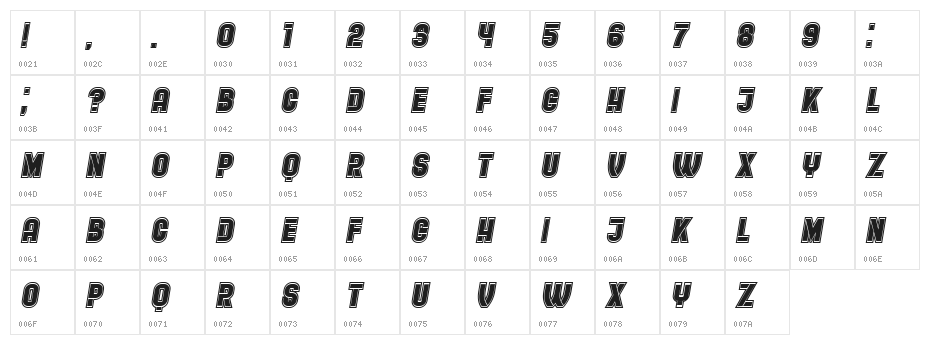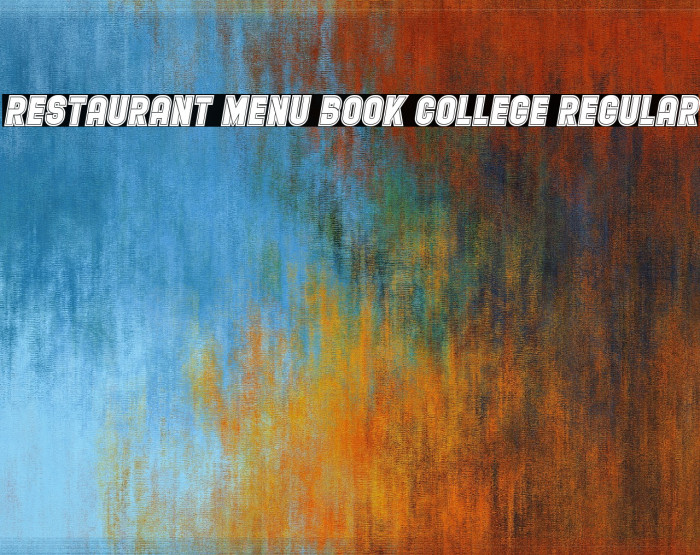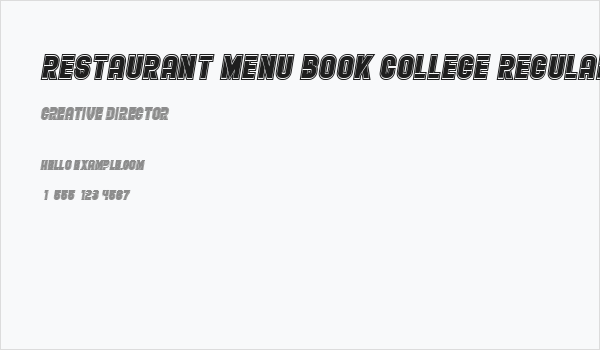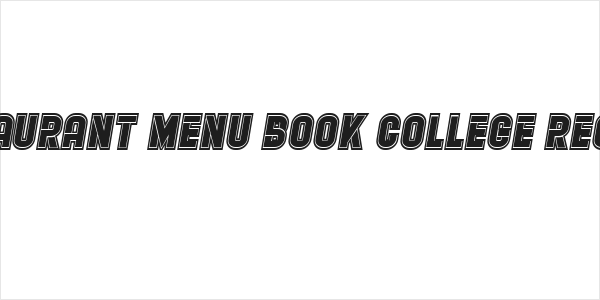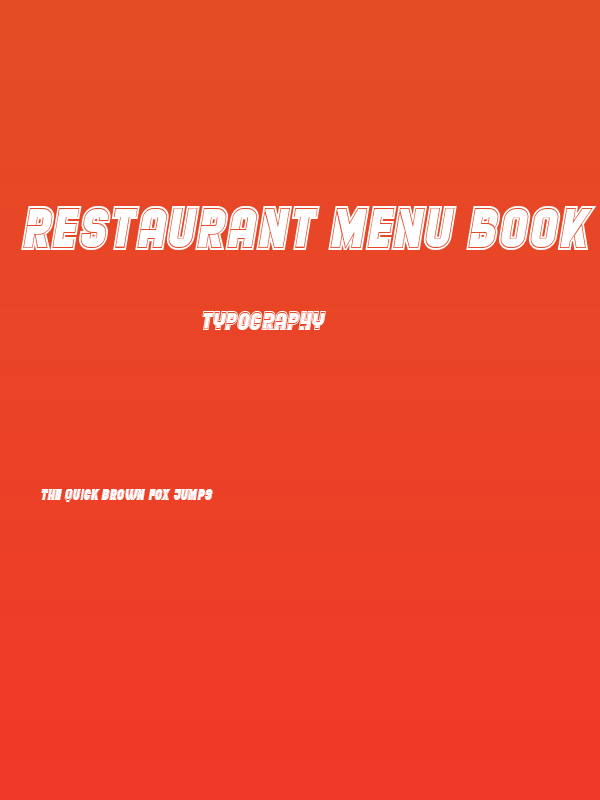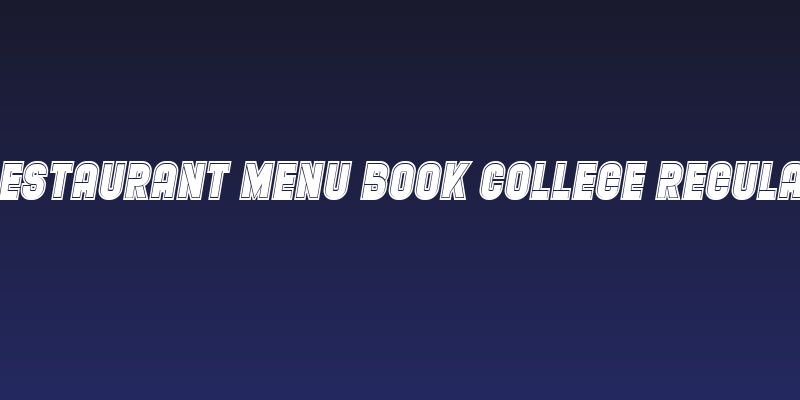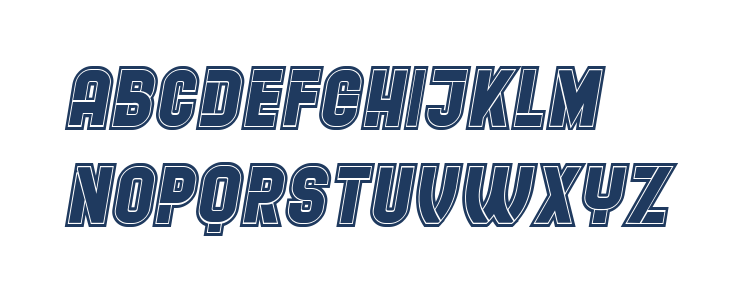
Restaurant Menu Book College Regular Font
Restaurant Menu Book College Regular Description
This font features bold, uppercase letters with a distinct outline, creating a strong and impactful appearance. The characters are designed with a slight slant, adding a dynamic and energetic feel. The font maintains a consistent thickness throughout, ensuring readability while emphasizing its bold nature. The numbers and special characters follow the same design principles, making them cohesive with the alphabet. The overall style is modern and eye-catching, suitable for attention-grabbing headlines or titles.
| Proposed Projects | Ideal for sports team branding, event posters, or any project needing a bold, impactful typeface. |